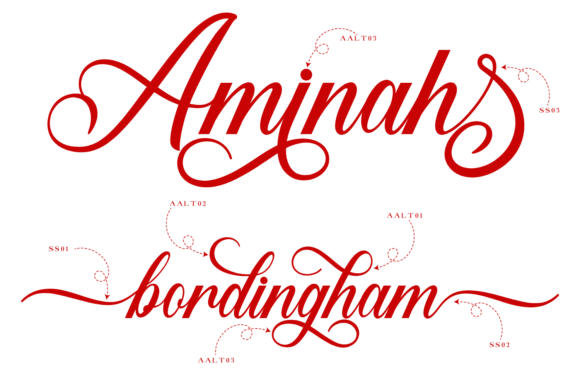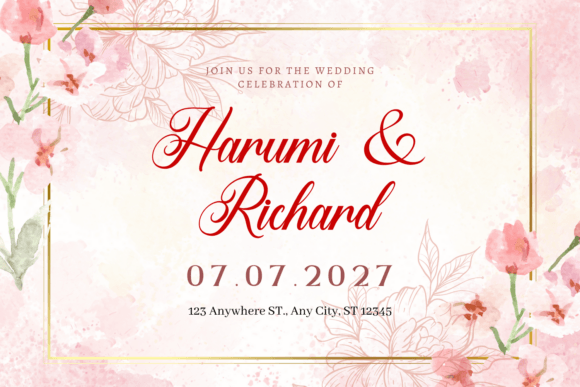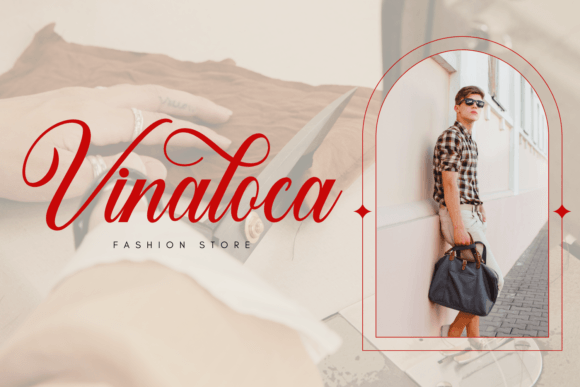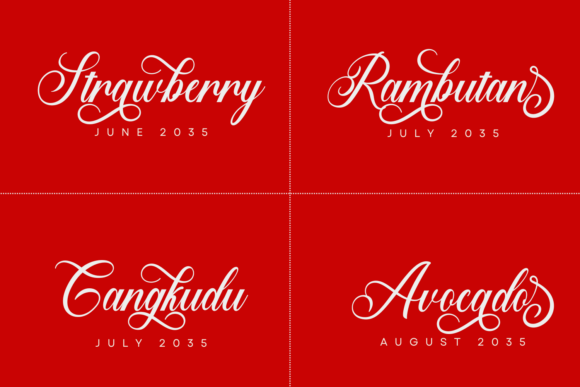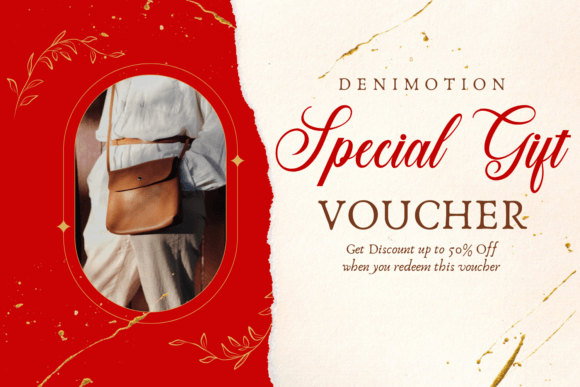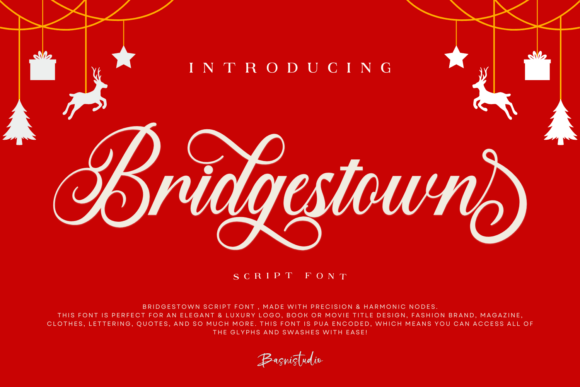
The Elegance of Bridgestown Font: A Designer’s Delight
Have you ever been in the middle of a design project, and suddenly, you’re stuck on finding the perfect font? I recall a recent experience where a client requested a luxurious logo design for a high-end fashion brand. The challenge was to find a font that exuded elegance and sophistication. That’s when I stumbled upon the Bridgestown Script Font, and it was love at first sight! 💕
An Honest Review of Bridgestown Font
- ✨ Elegant and Luxurious: Bridgestown Font is perfect for creating high-end designs, from luxury logos to fashion brand advertisements.
- ✅ PUA Encoded: The font is PUA encoded, making it easy to access all glyphs and swashes.
- 💫 Harmonic Nodes: The font’s unique design, crafted with precision and harmonic nodes, sets it apart from other script fonts.
- 📚 Versatile: Use it for book or movie title designs, magazine layouts, clothing branding, lettering, quotes, and more.
While Bridgestown Font is an excellent choice for many design projects, there are a few things to consider:
- 🤔 Learning Curve: Due to its extensive features and glyphs, it may take some time to get familiar with the font’s capabilities.
- ⚠️ Overuse: As with any elegant font, be cautious not to overuse it, as it may lose its luxurious feel.
A Practical Guide to Using Bridgestown Font
The Designer Inspiration Behind Bridgestown Font
The story behind Bridgestown Font’s creation is one of passion and dedication. The designer, inspired by classic luxury typography, aimed to craft a font that would bring elegance and sophistication to any design project. With precision and attention to detail, they developed a font that not only meets but exceeds expectations.
A: PUA (Private Use Area) encoding allows font creators to include additional glyphs and characters that aren’t part of the standard Unicode range. This means users can access a wider range of characters, swashes, and alternates, making the font more versatile.
Q: Is Bridgestown Font suitable for body text?
A: While Bridgestown Font is elegant and luxurious, it’s primarily designed for display purposes. For body text, consider a more readable font to ensure optimal readability.